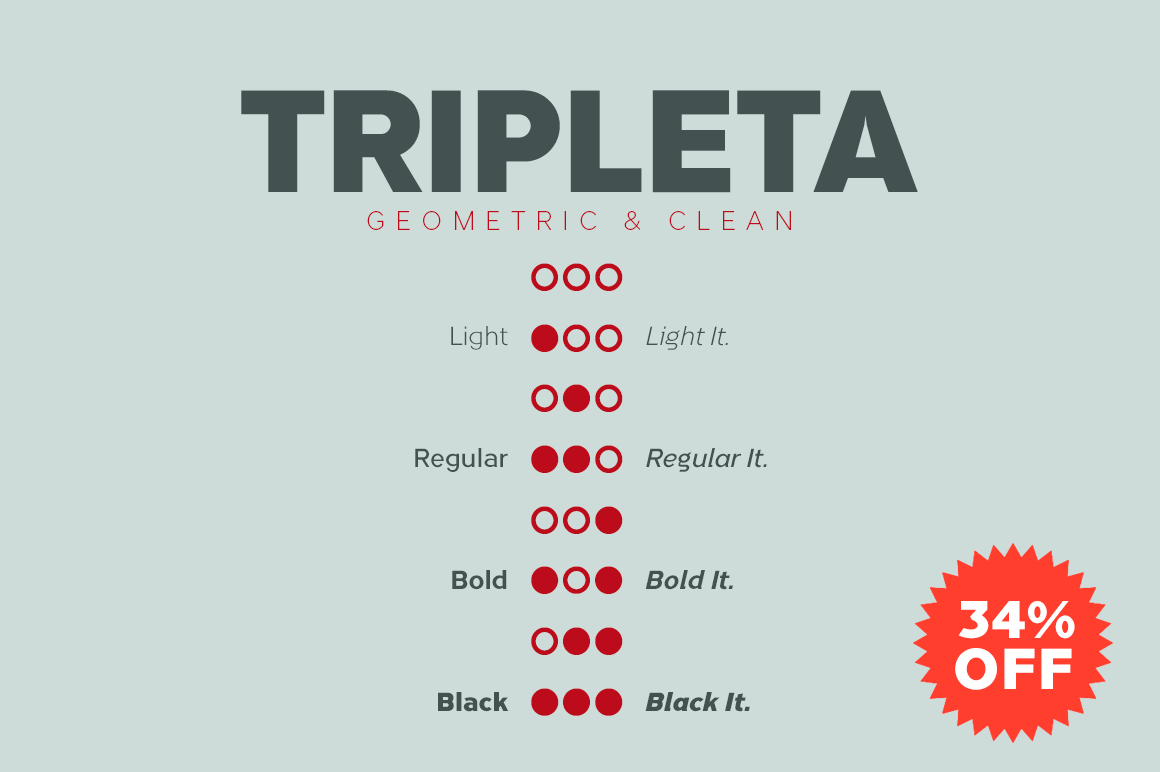
Tripleta Grotesk -8 fonts-
Tripleta Grotesk is a 16-member typographic family with a very clean and corporate look. Tripleta is of pure geometric construction basing the proportions, with extreme care, of each letter based on my theory of the three axes.
The metric and configuration of the kerning has been exhaustive for maximum balance and readability. Italic versions have their own stylized lowercase letters with an inclination of 13 degrees. All fonts have advanced Open Type functions and the Bitcoin symbol
- Light, Regular, Bold & Black + Italics (8 fonts)
- OpenType Features: Subscript, Standard Ligatures, Historical Ligatures, Inferiors, Historical Forms, Kerning, Alternate Annotation Forms, All Alternates, Additional languages, Numerators, Oldstyle Figures, Capital Spacing, Ordinals, Fractions, Superscript, Scientific Inferiors, Superiors, Denominators, Extended Fractions, Discretionary Ligatures, Slashed Zero, Superior letters, Localized Forms.